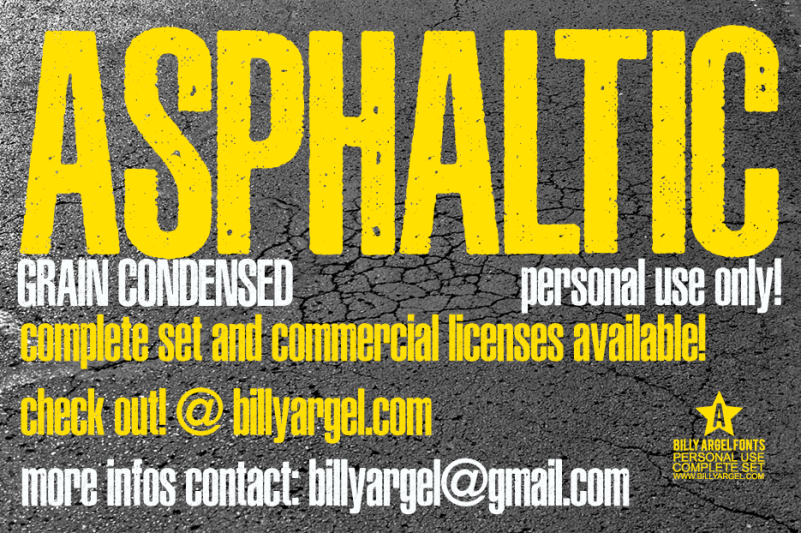
Asphaltic Grain Font
Asphaltic Grain Font, This font is perfect for stickers, retro projects, craft projects, shirts, svg designs, procreate designs, branding, blogs, logos, invitations and more!